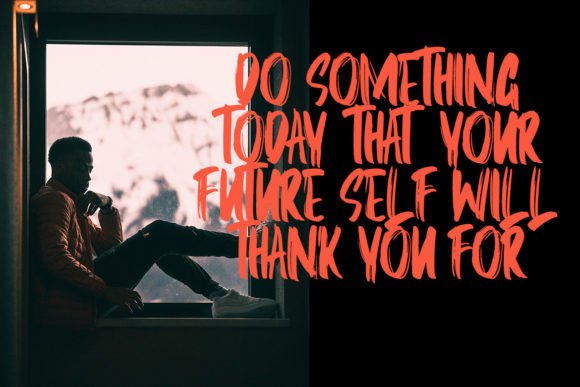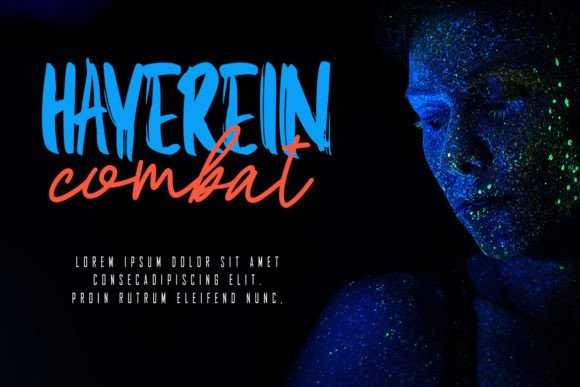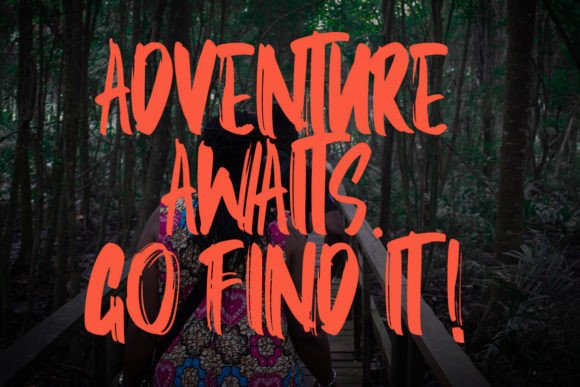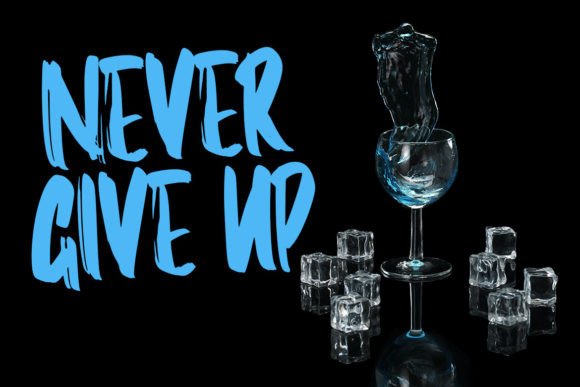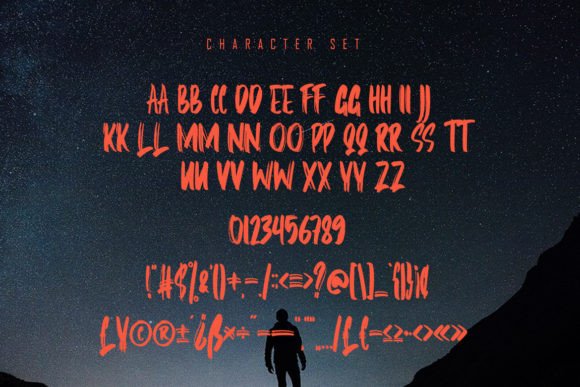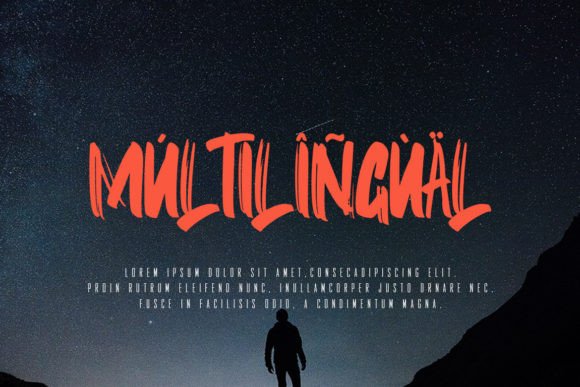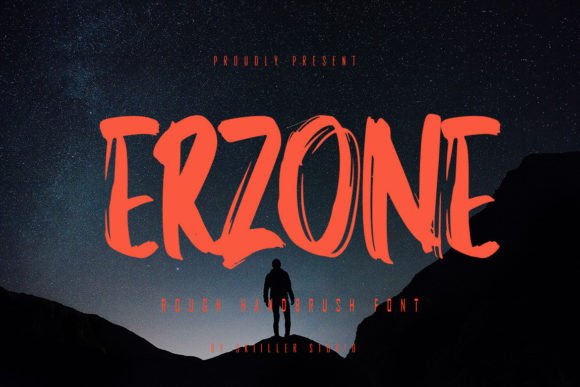
Erzone Font: A Brush-Pen Inspired Typeface for Creative Designs
In the world of typography, fonts play a crucial role in conveying messages, expressing emotions, and creating visual identities. For designers, crafters, and artists, finding the right font can be a daunting task. However, if you’re looking for a unique and realistic typeface that can elevate your designs, look no further than Erzone Font. In this article, we’ll explore the features, inspiration, and uses of Erzone Font, and why it’s a must-have for your design arsenal.
The Inspiration Behind Erzone Font
Erzone Font was inspired by the typography of natural brushes, specifically the quick motion of a brush pen. This typeface embodies the imperfections and uniqueness of hand-written text, giving it a realistic and organic feel. The font’s creator aimed to capture the dry, rough texture of brush-pen writing, resulting in a distinctive and eye-catching typeface.
Characteristics of Erzone Font
Erzone Font boasts several characteristics that make it an excellent choice for various design projects:
- Realistic and hand-written feel: Erzone Font’s unique texture and imperfections give it a genuine, hand-written appearance that sets it apart from other fonts.
- Quick motion style: The font’s brush-pen inspiration results in a dynamic, energetic feel that’s perfect for designs that require a sense of movement.
- Dry and rough texture: Erzone Font’s texture adds a layer of depth and visual interest to your designs, making them more engaging and attention-grabbing.
Uses of Erzone Font
Erzone Font is a versatile typeface suitable for a wide range of design applications, including:
- Commercial needs: Use Erzone Font for logos, branding, and advertising materials to create a unique and memorable visual identity.
- Magazine and fashion design: Erzone Font’s stylish and modern feel makes it perfect for fashion magazines, editorials, and high-end brand campaigns.
- Product packaging: Add a touch of personality to your product packaging with Erzone Font, making your brand stand out on store shelves.
- Headlines and posters: Erzone Font’s bold and eye-catching design makes it ideal for headlines, posters, and other attention-grabbing materials.
- Merchandise and social media: Use Erzone Font for merchandise, social media graphics, and other digital content to create a consistent and recognizable brand voice.
- Greeting cards and invitations: Erzone Font’s unique texture and style make it perfect for creating personalized greeting cards and invitations.
Why Choose Erzone Font?
With so many fonts available, why choose Erzone Font? Here are a few reasons why designers and crafters love this typeface:
- Unique and distinctive: Erzone Font’s realistic and hand-written feel sets it apart from other fonts, making it an excellent choice for designers looking to create something new and original.
- High-quality and versatile: Erzone Font is designed to work well in various design applications, from commercial and fashion design to digital content and print materials.
- Easily readable: Despite its unique texture and style, Erzone Font remains easily readable, making it perfect for body text and headlines.
Erzone Font is a one-of-a-kind typeface that brings a touch of realism and personality to your designs. With its unique brush-pen inspiration, versatile characteristics, and wide range of uses, Erzone Font is an excellent addition to any designer’s toolkit. Whether you’re working on a commercial project, fashion design, or digital content, Erzone Font is sure to elevate your designs and make them stand out. So why not give Erzone Font a try and experience the power of realistic typography for yourself?